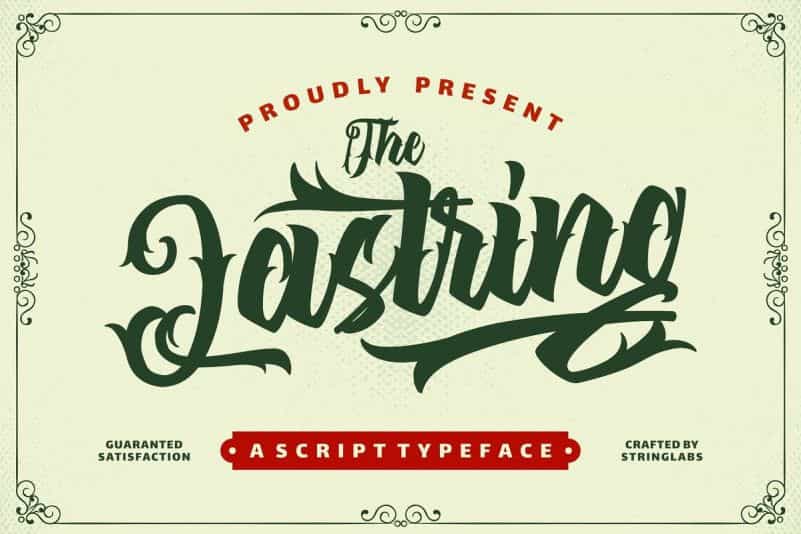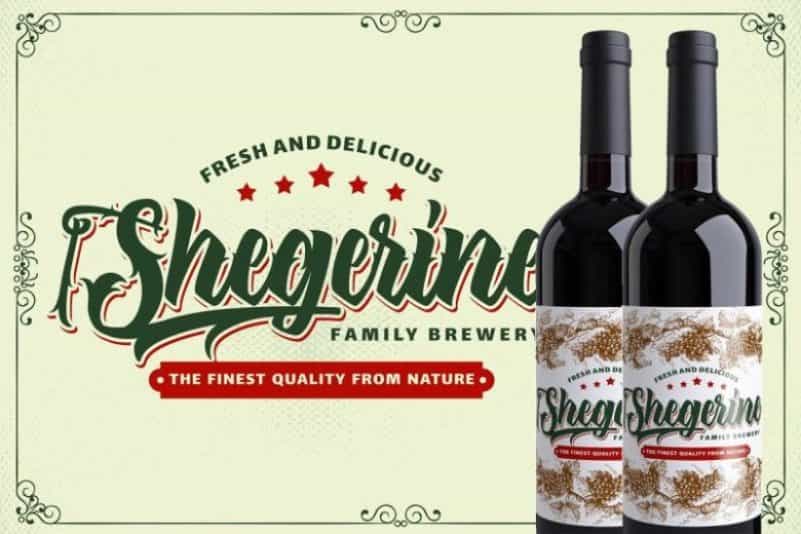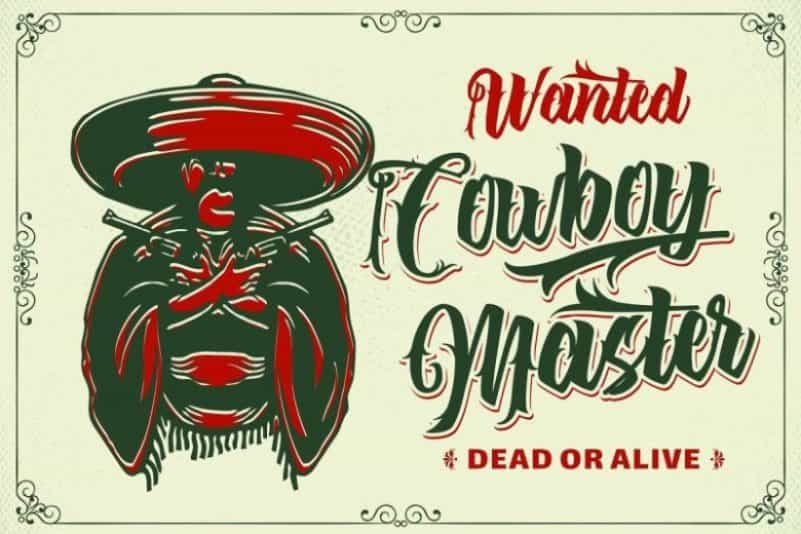
The Lastring is a script typeface that has the tattoo style, gothic taste and combines with vintage and retro styles. The Lastring is perfect for gothic lovers, besides this font is also perfect if used for brands such as: Barbershop, motorcycle club, clothes shop, coffee shop, shoe brands and vapor shops are just some of the many businesses that you can start. This Font Template is Classy, Elegant, Creative, Cool and has a Unique Concept.